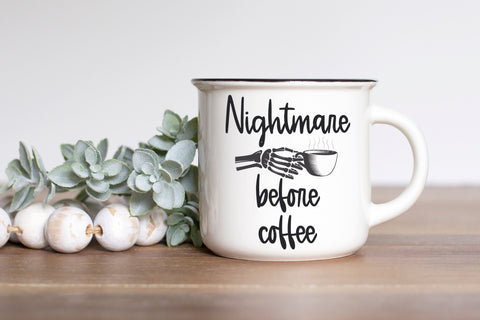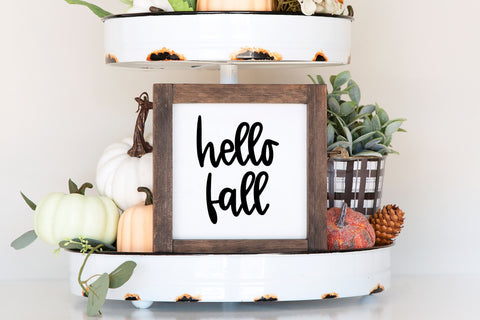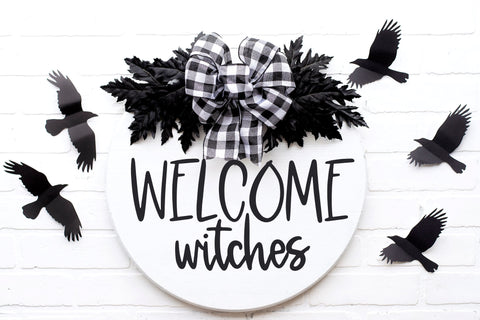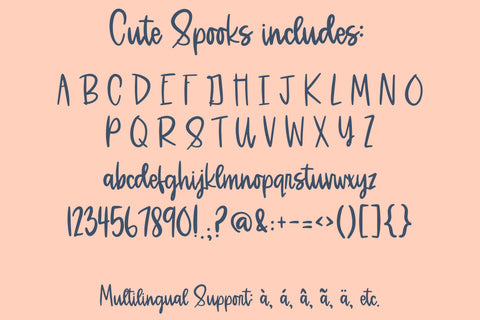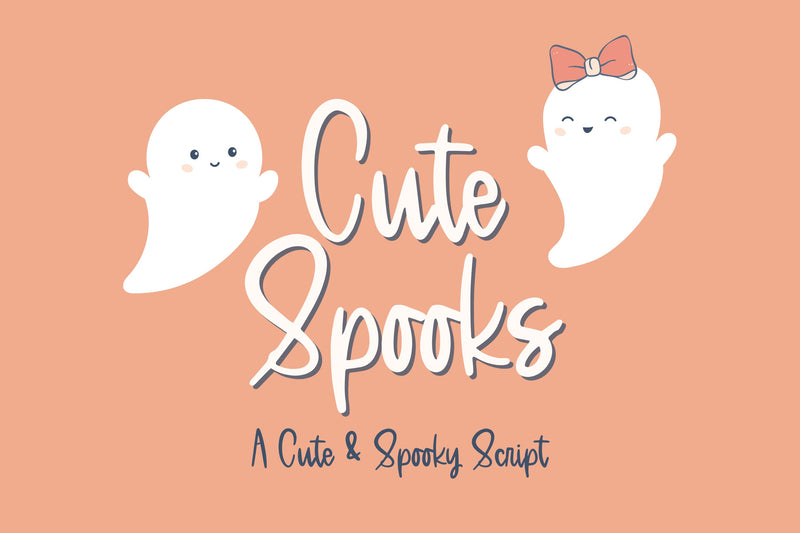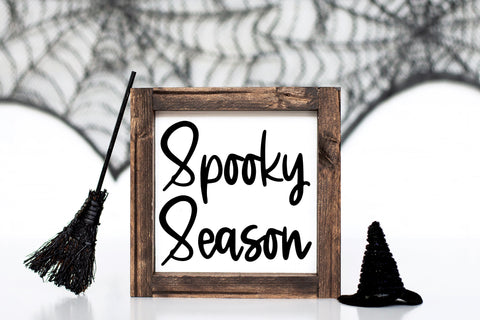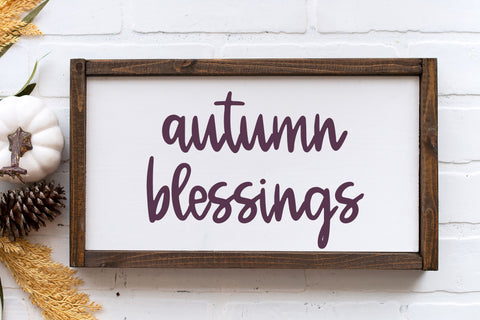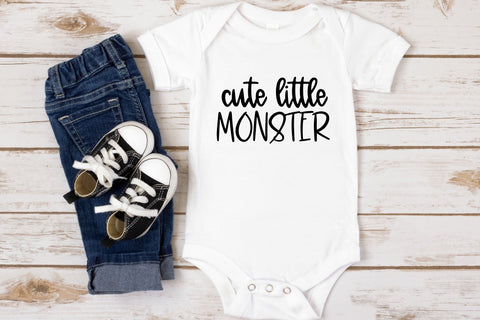
Cute Spooks, A Halloween Handwritten Font, Cute Cursive Script
Introducing Cute Spooks, our cute Halloween Handwritten font, perfect for all your spooky projects! This meticulously crafted handwritten font captures the essence of Halloween with its playful yet eerie vibe. Whether you're creating invitations, banners, or decorations, our Handwritten Font will add a touch of magic to your designs. Compatible with Cricut and ideal for SVG files, this versatile font brings your Halloween-themed crafts to life. Get creative with our exclusive fonts for Cricut and let your imagination run wild this Halloween season.